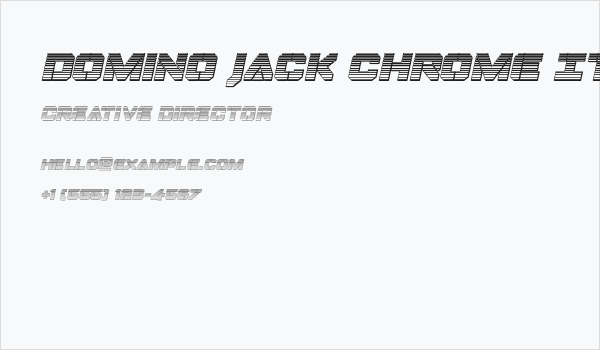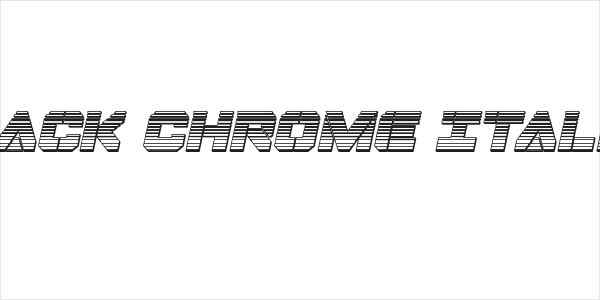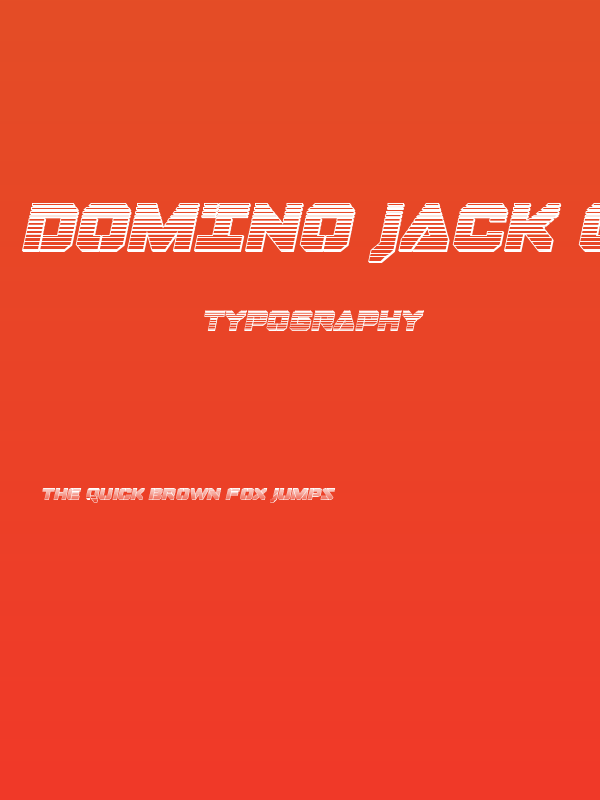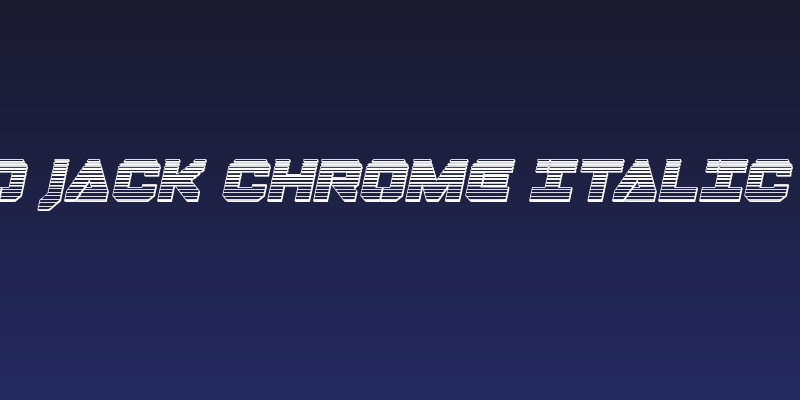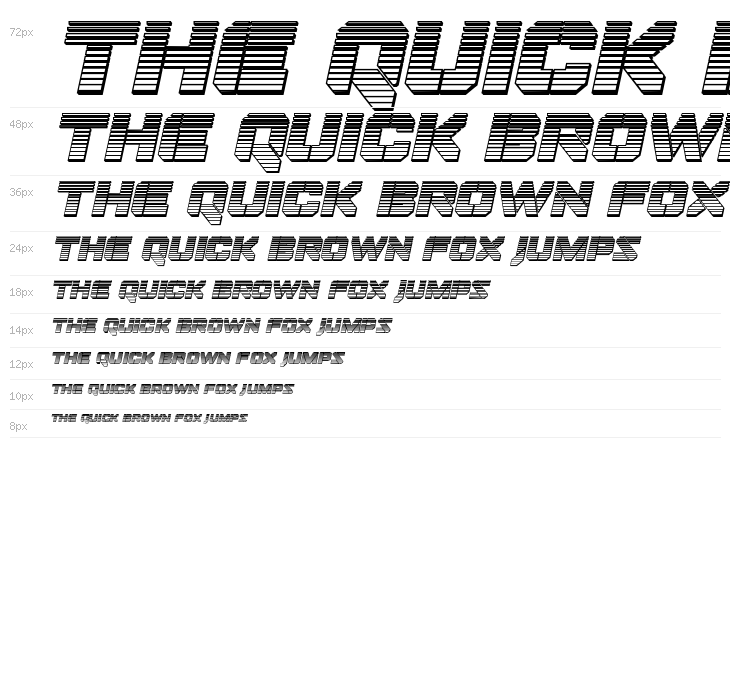
Domino Jack Chrome Italic Italic Font
Domino Jack Chrome Italic Italic Description
This font features a bold, geometric design with a distinct 3D effect created by parallel lines running through each character. The italicized style adds a dynamic and forward-leaning appearance, enhancing its modern and futuristic feel. The uppercase and lowercase letters maintain a consistent structure, while the numerals and special characters follow the same design principles, ensuring uniformity across all elements. The font's unique style makes it stand out, ideal for projects that require a strong visual impact.
| Proposed Projects | Ideal for futuristic branding, tech-related designs, video game titles, and eye-catching posters. |